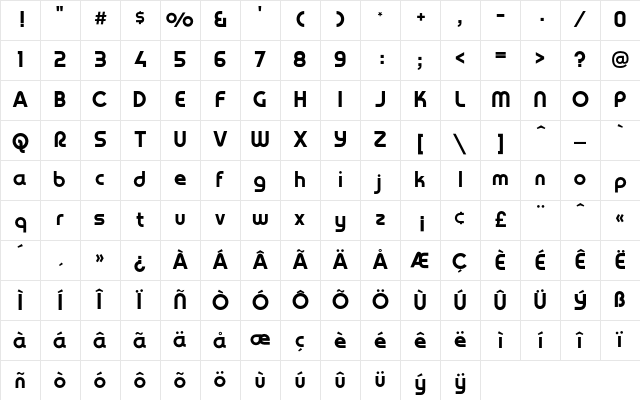
YagiUHFNo2 Regular
Design Context for YagiUHFNo2
YagiUHFNo2 is a composed and adaptable typeface that performs quietly and consistently across a wide range of design contexts.